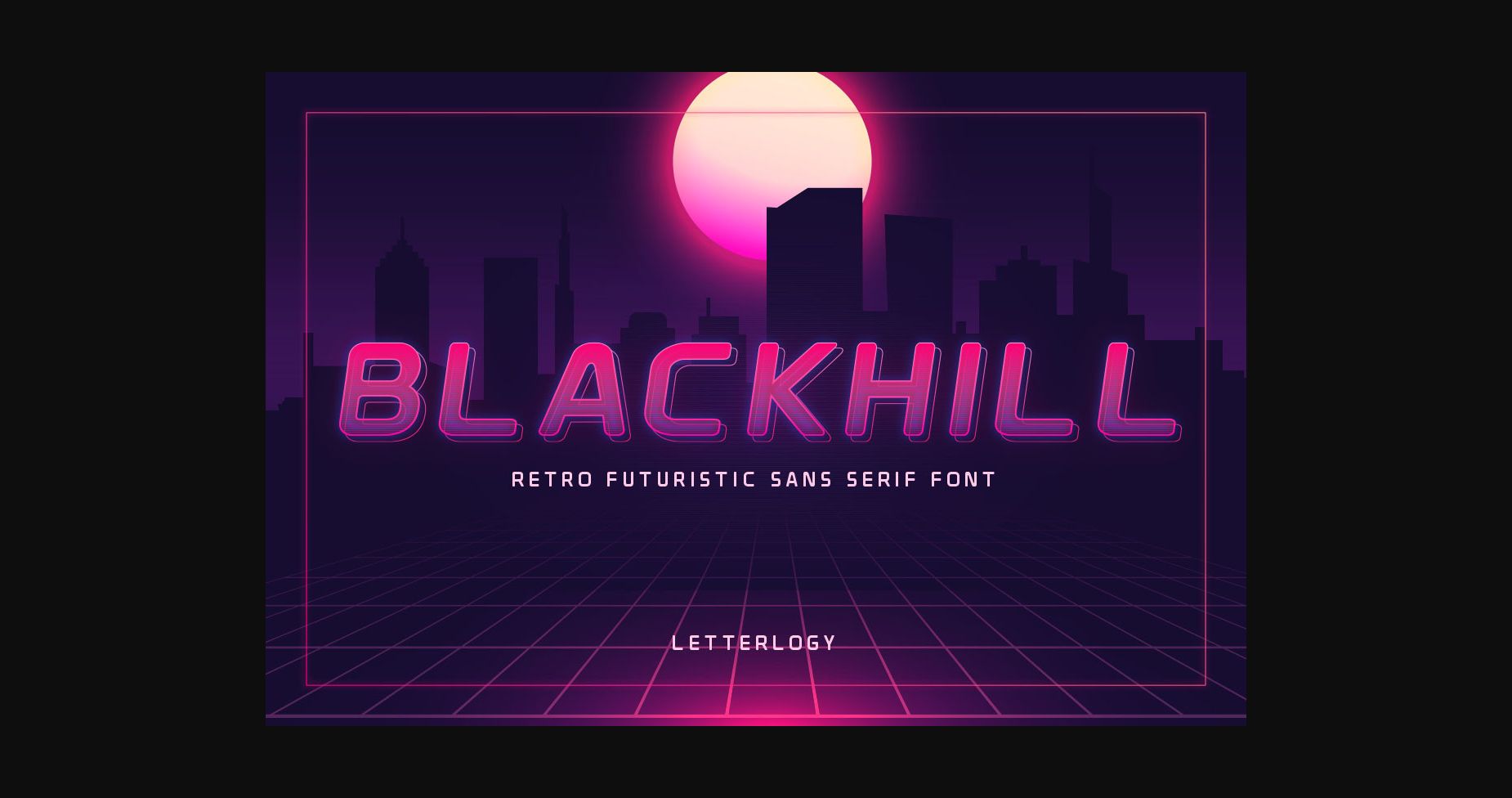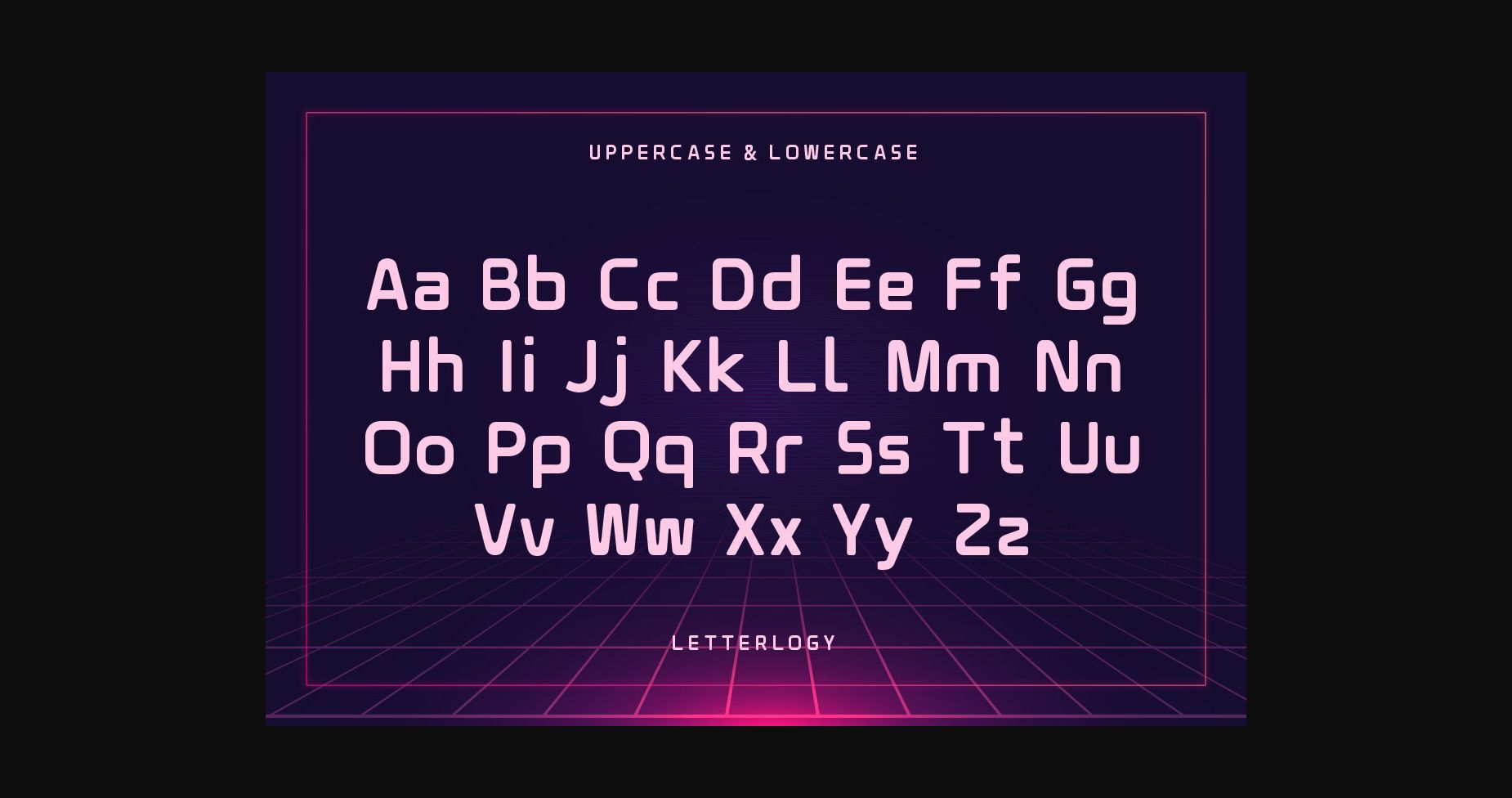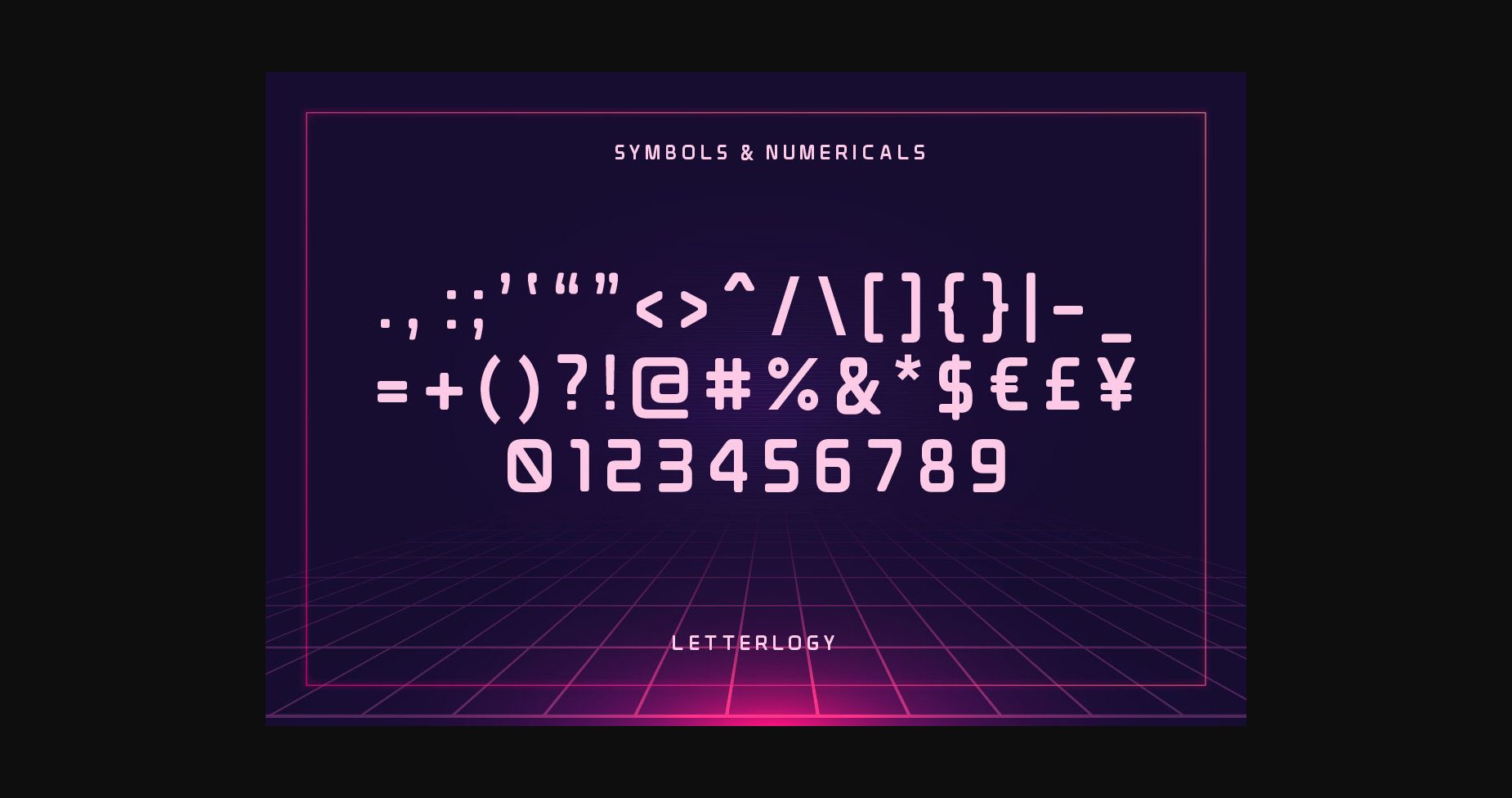
About Blackhill Font
BLACKHILL is a retro futuristic sans serif font that brings the vibes and aesthetics from the world of the near-future into your designs by combining aspects between modern and futuristic font design into one whole package.